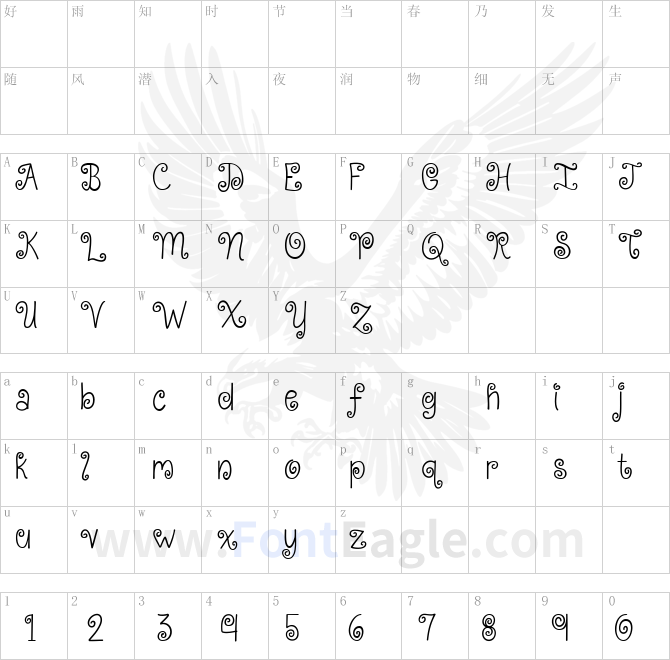
- Font name:KG Kiss Me Slowly
- Font Subfamily ID:KimberlyGeswein: KG Kiss Me Slowly: 2012
- Font Full Name:KG Kiss Me Slowly
- Postscript:KGKissMeSlowly